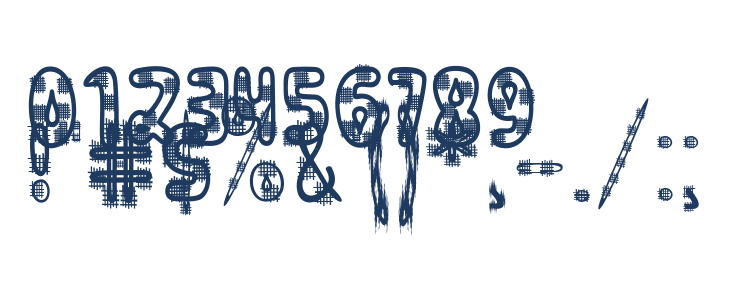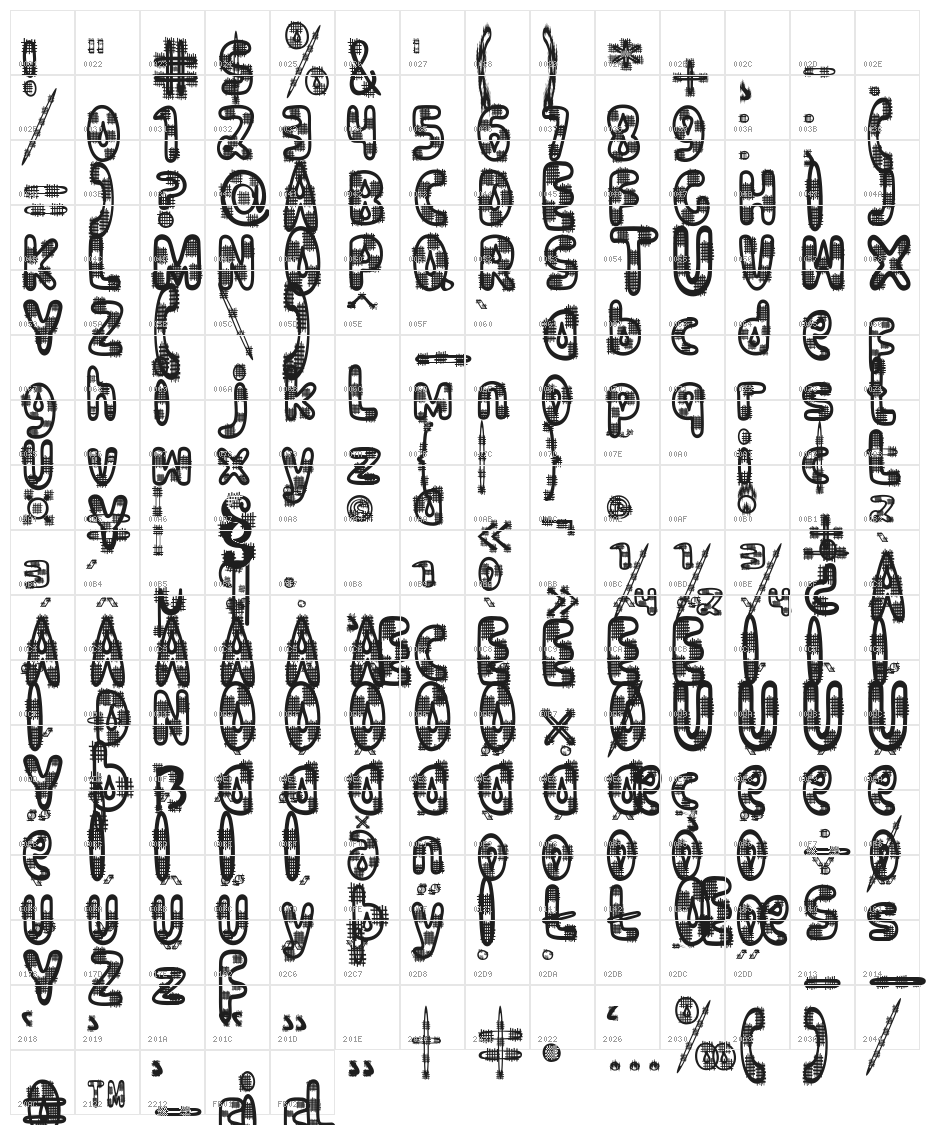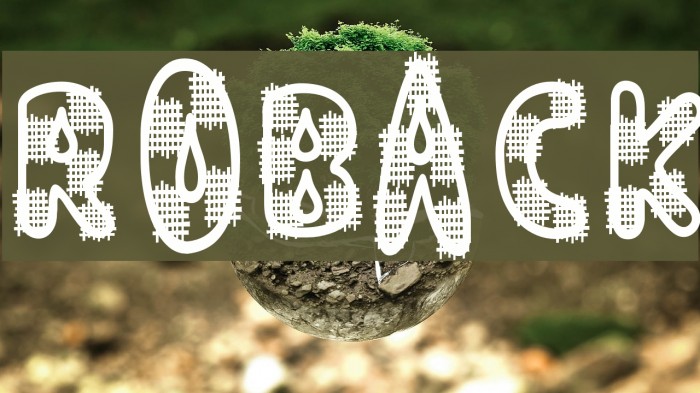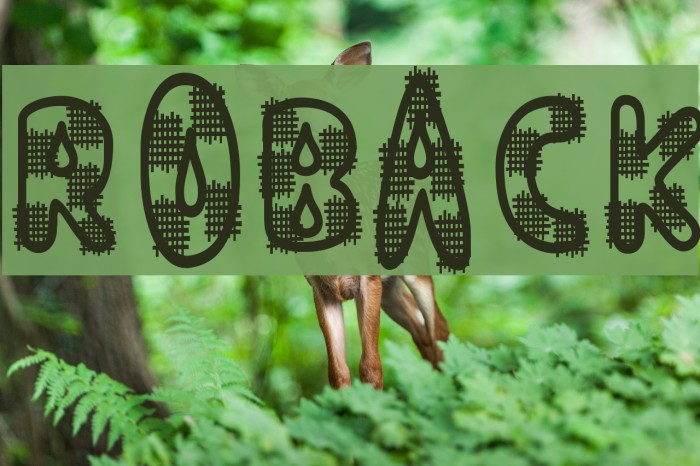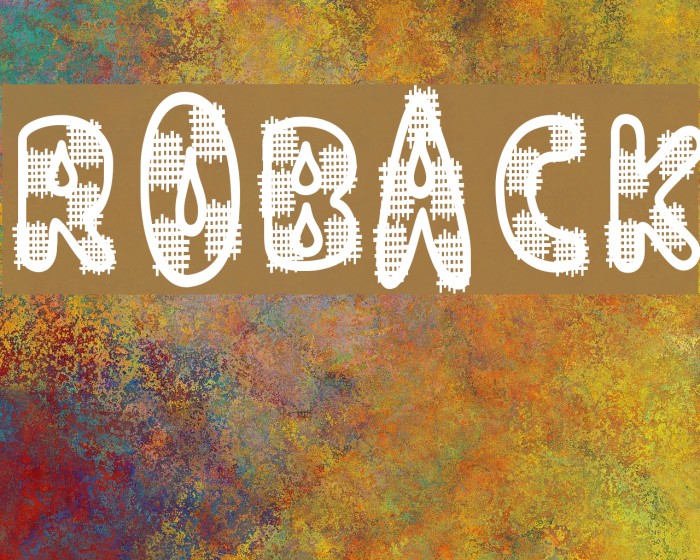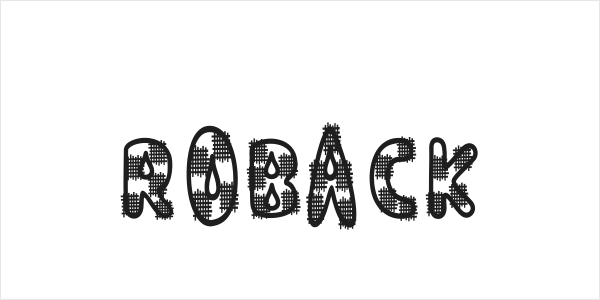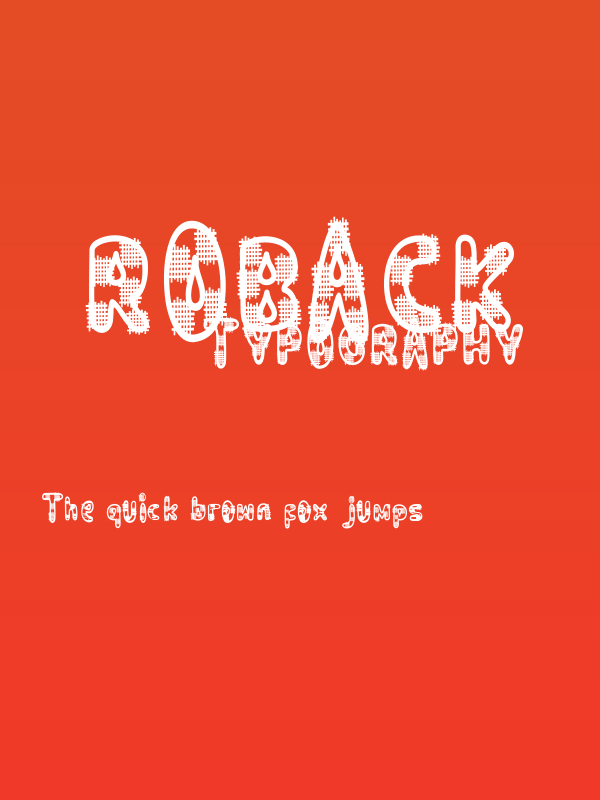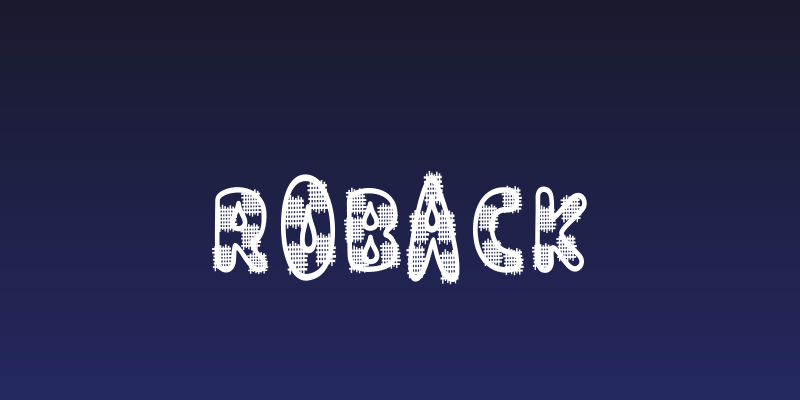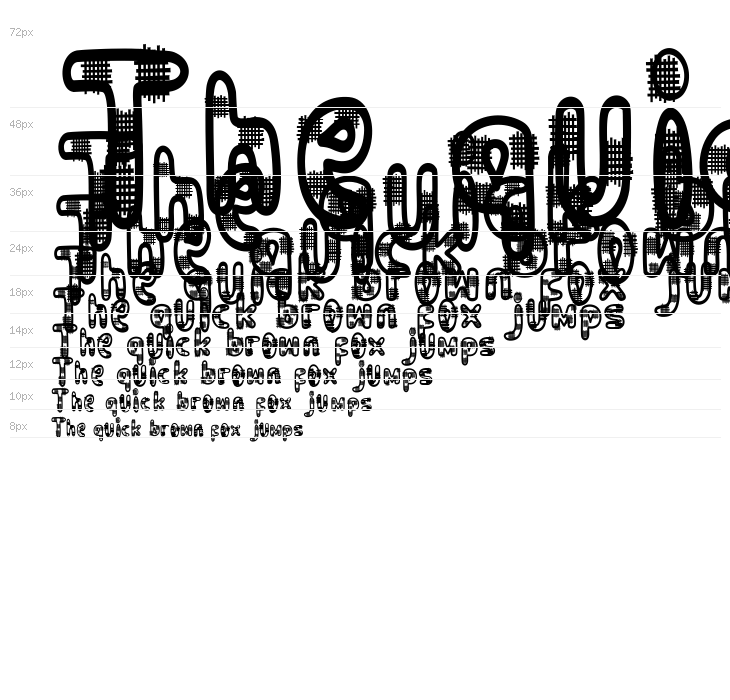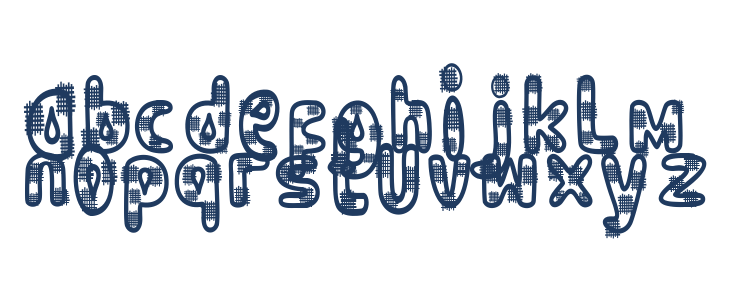
ROBACK Font
ROBACK Description
This font features a unique and playful design with a textured, cross-hatched pattern filling each character. The letters are bold and rounded, giving them a friendly and approachable appearance. The texture adds depth and a hand-drawn feel, making it stand out in any design. The characters are consistent in style, with a slightly whimsical touch that adds to their charm. The numbers and special characters follow the same design principles, ensuring a cohesive look across all elements. This font is perfect for projects that require a fun and engaging aesthetic.
Overall StylePlayful, Hand-drawn
Use CaseHeadlines, Logos, Posters
Proposed ProjectsIdeal for children's books, playful branding, posters, and creative invitations.